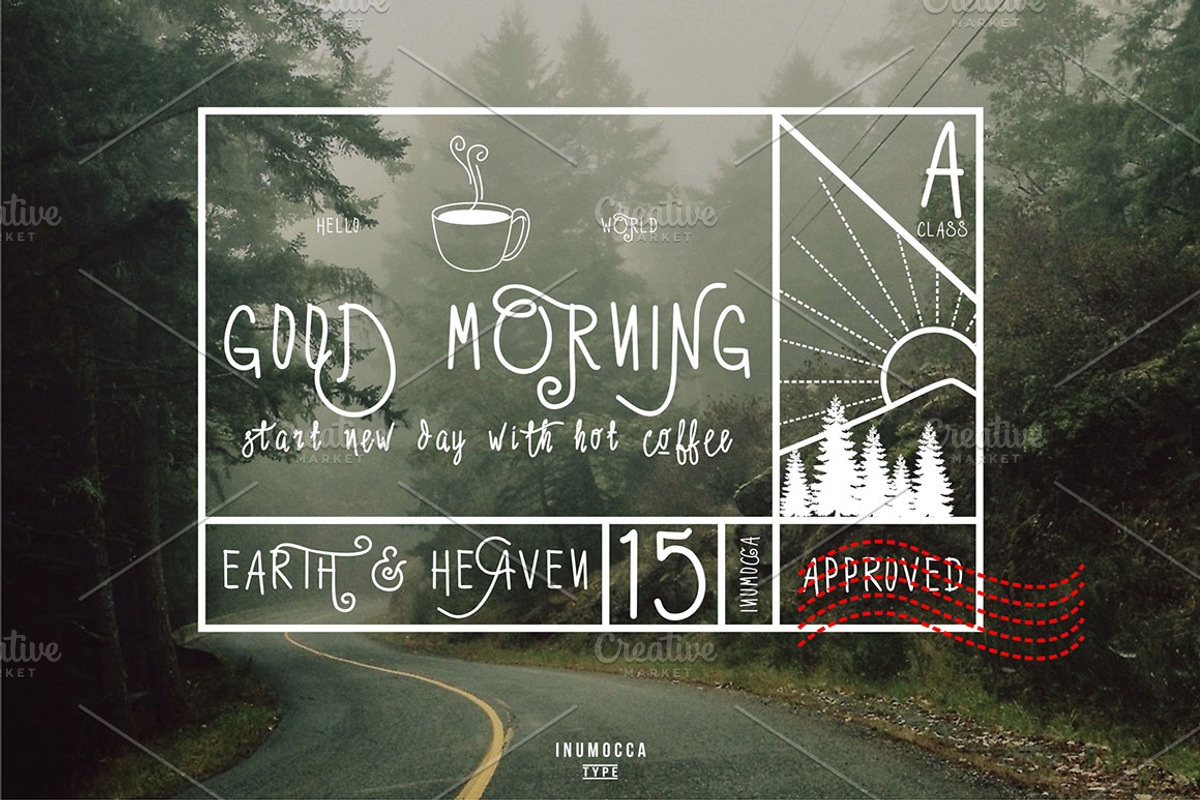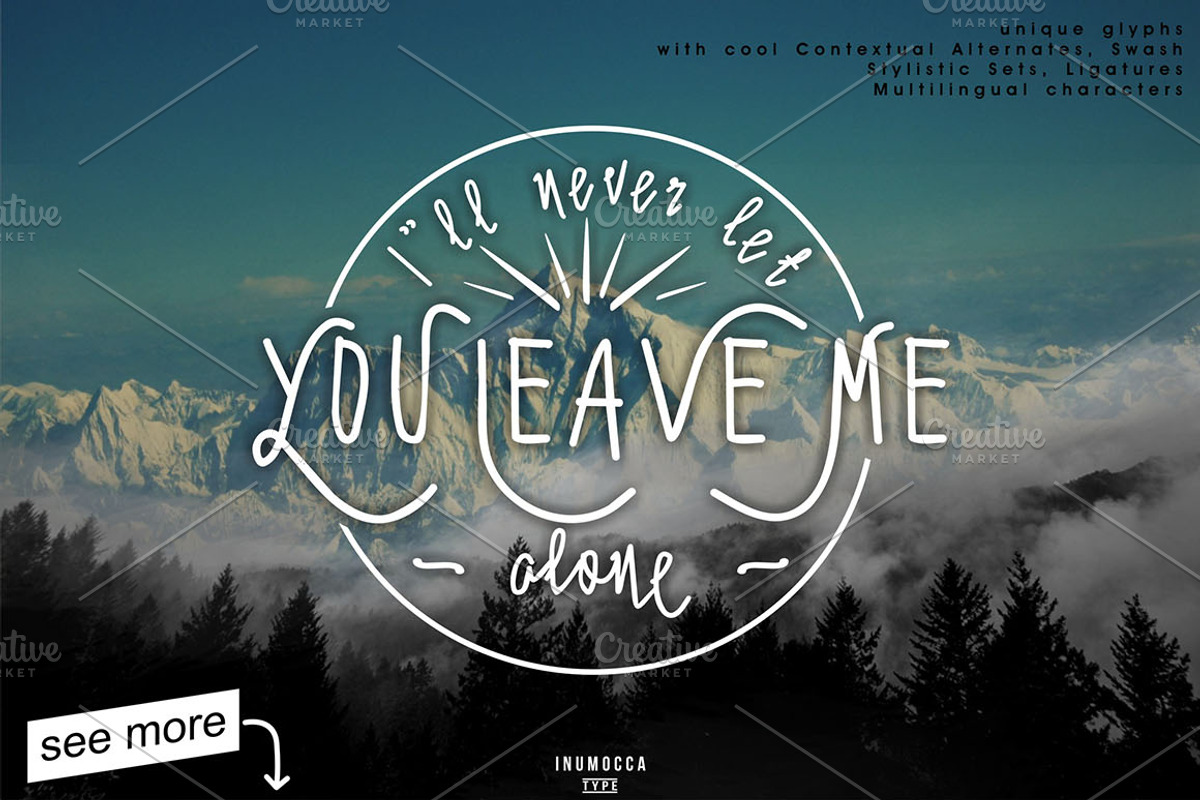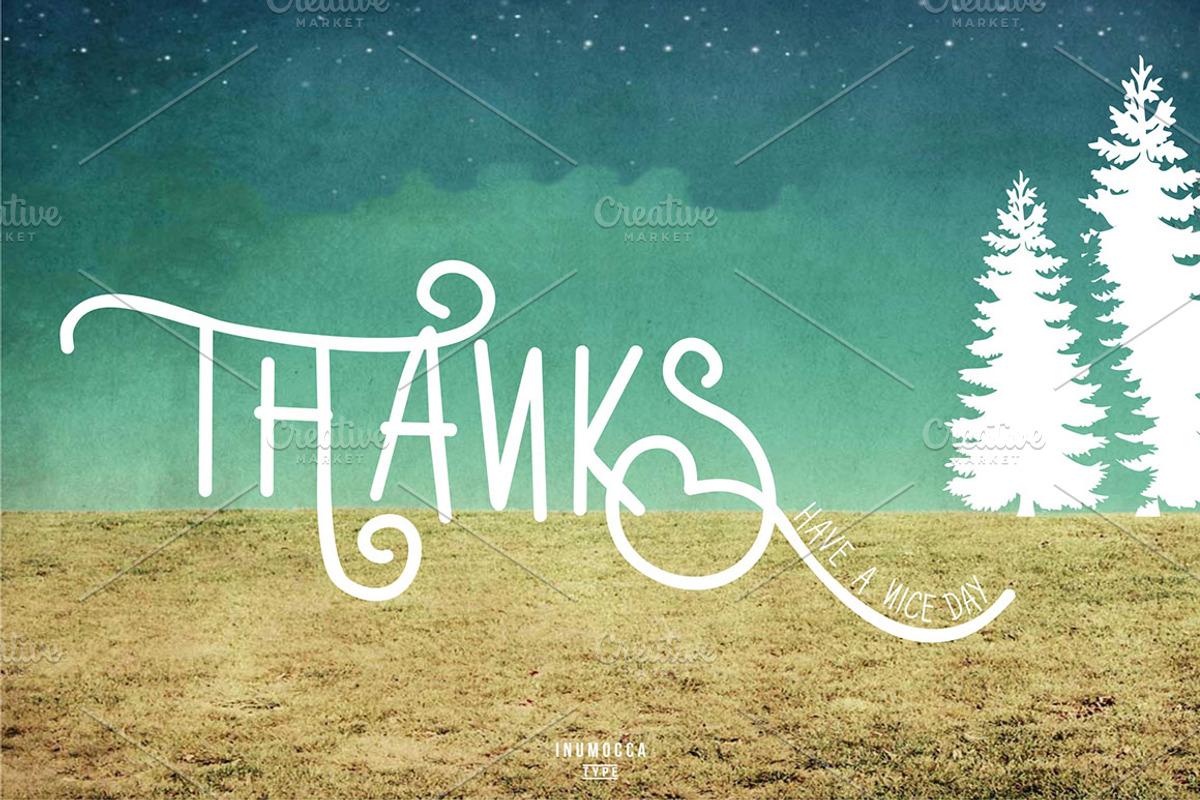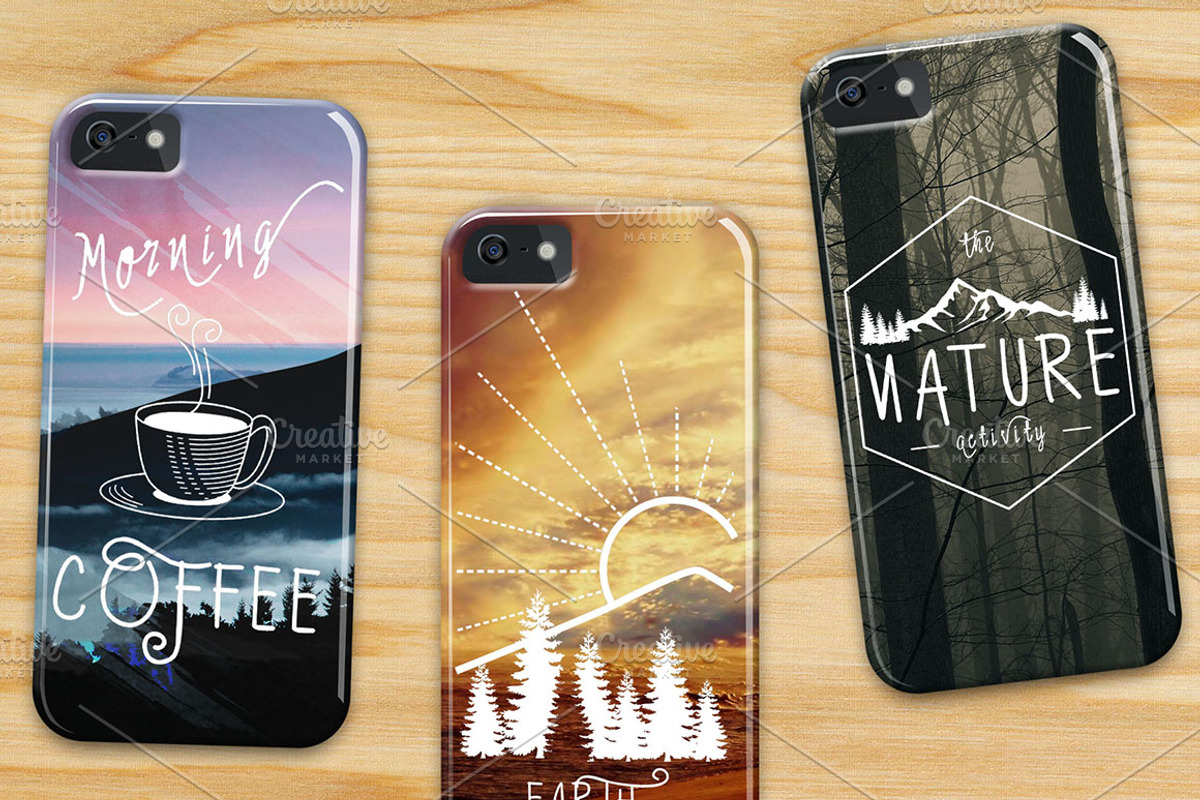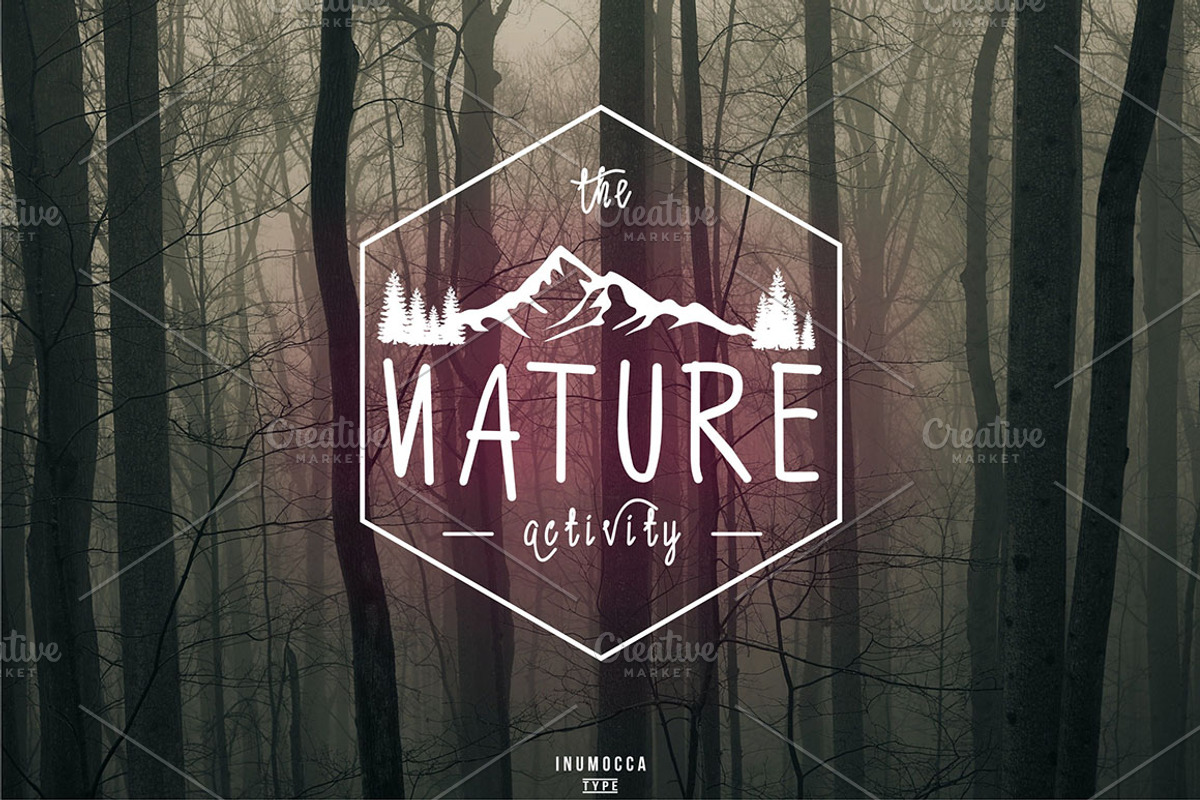
Kathleen Typeface
Kathleen Typeface by inumoccatype is a font selected for branding, posters, packaging, typography.
- Kathleen available with normal and slant mode, more 300 unique glyphs Kathleen normal and slant support with Opentype Unique glyphs with coo
Why Kathleen Typeface is worth a look
Kathleen Typeface by inumoccatype fits naturally into Branding, posters, packaging, typography.